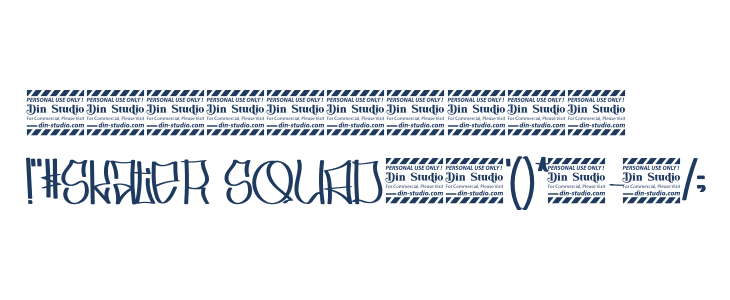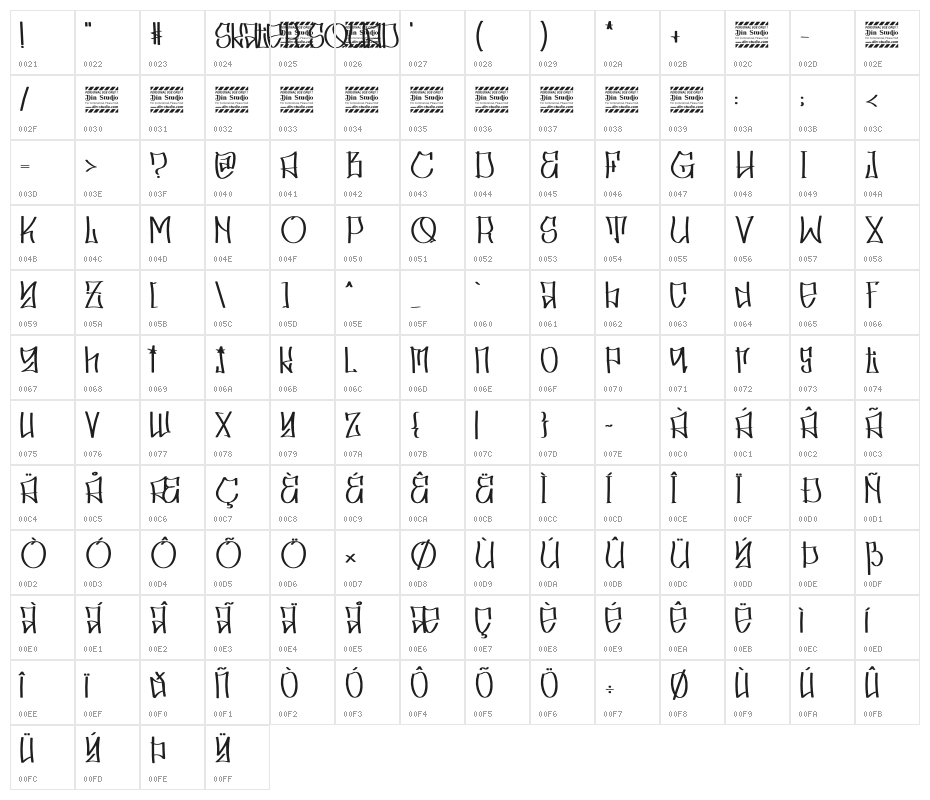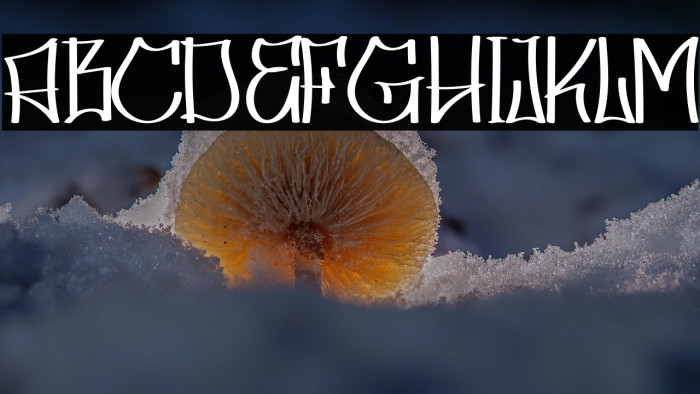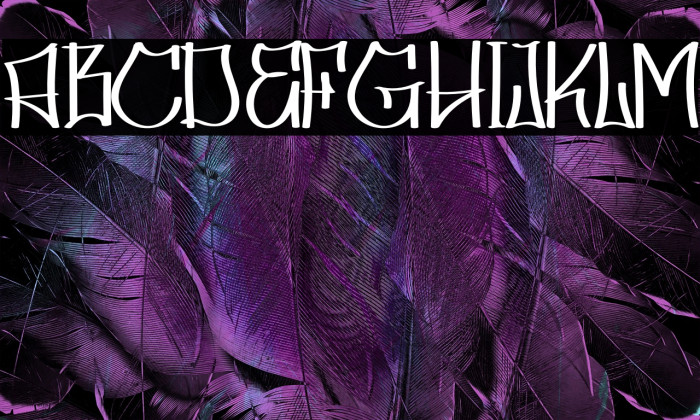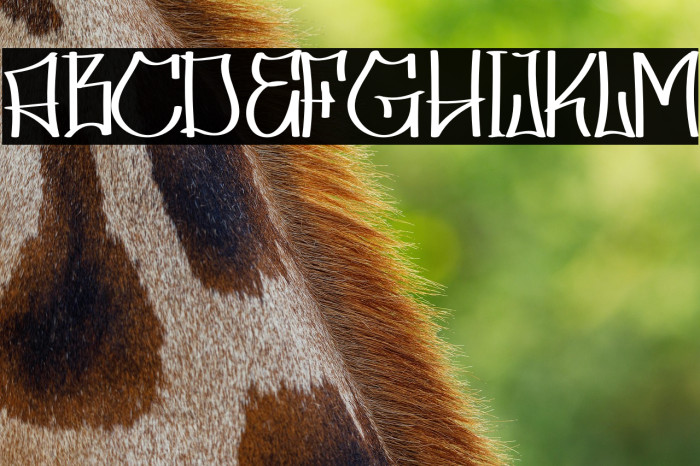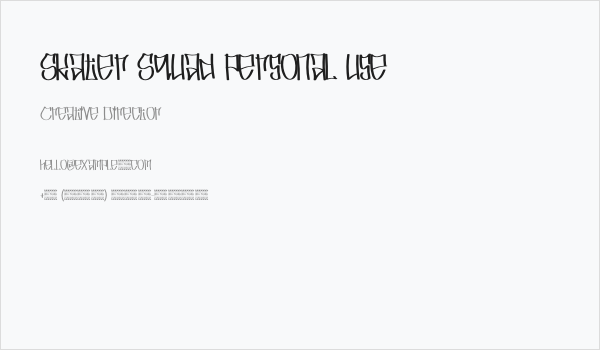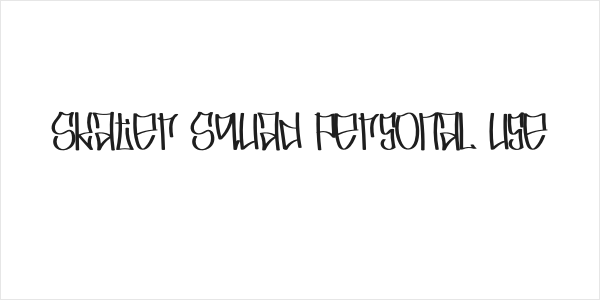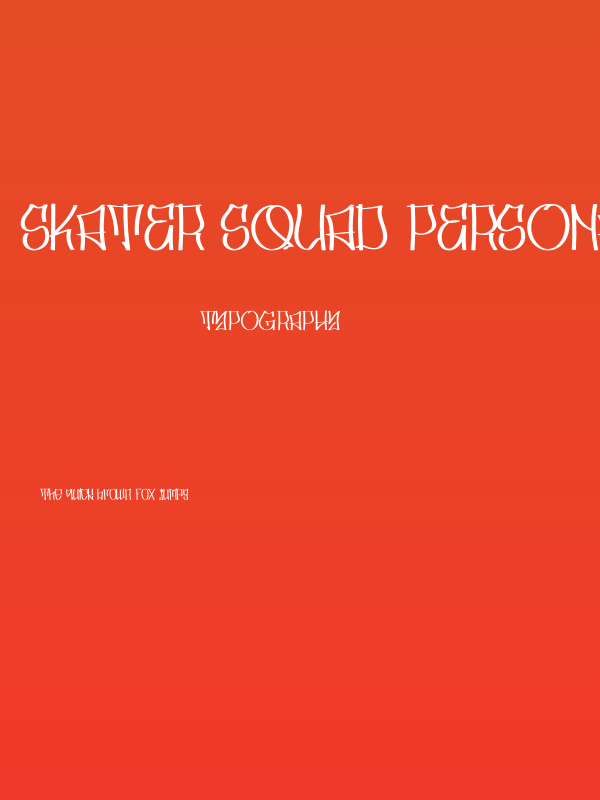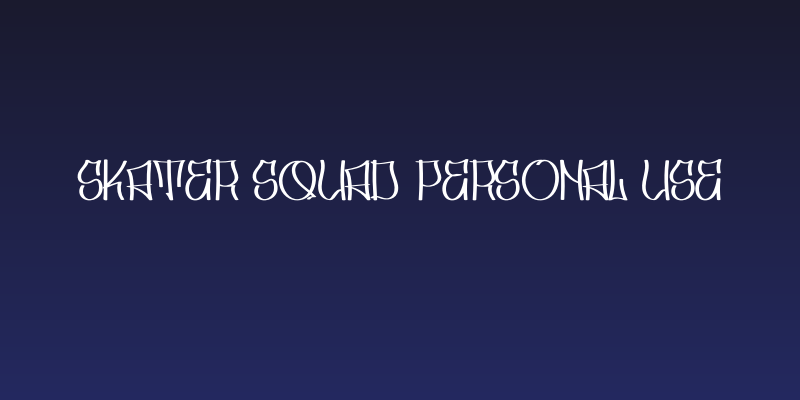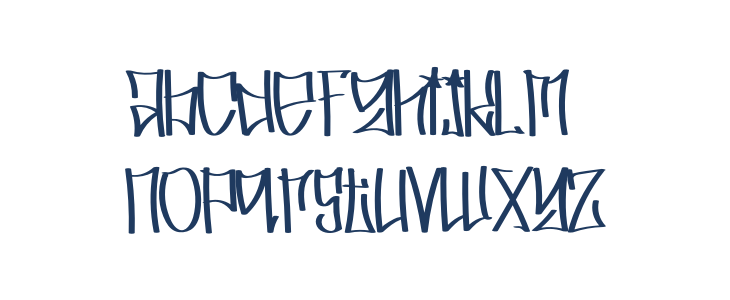
Skater Squad personal use Font
Skater Squad personal use Description
This font features a bold and edgy design, reminiscent of street art and graffiti. The uppercase letters are angular and dynamic, with sharp edges and a sense of movement. The lowercase letters maintain a similar style, offering a cohesive look throughout. Numbers and special characters are designed with the same boldness, ensuring consistency. The overall appearance is striking and attention-grabbing, making it ideal for projects that require a strong visual impact.
| Overall Style | Modern, Urban |
| Proposed Projects | Ideal for skateboarding brands, streetwear designs, event posters, and urban-themed artwork. |